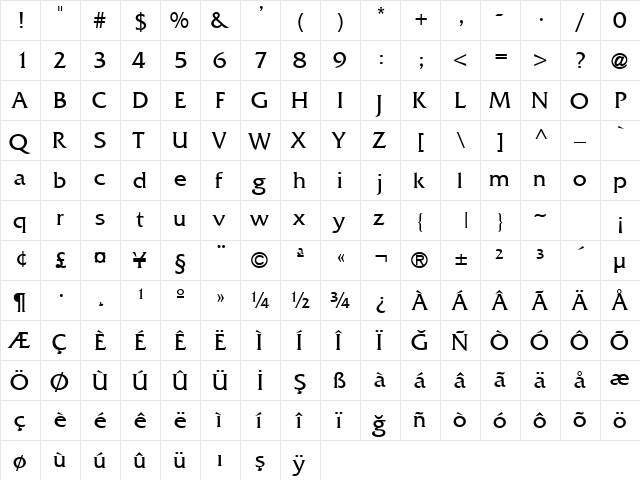
TR France Plain
Design Context for TR France Typeface
TR France takes a measured approach to typography — its balanced proportions and neutral character make it a reliable workhorse for both digital and print work.
Pro Tip: Pair TR France with a font of contrasting weight or personality to build a more expressive typographic hierarchy.